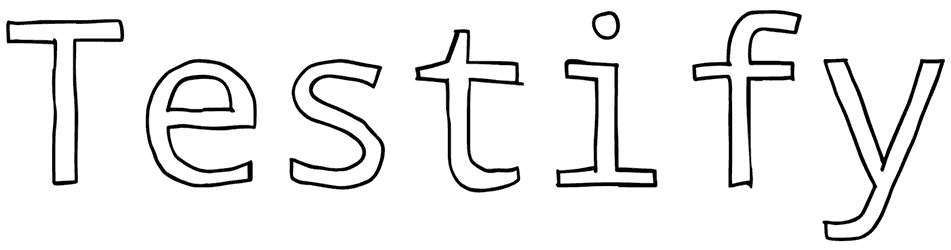
Testify Font
You can lend a unique and eye-catching outward to your words with this handwritten font. Testify has nice, minimal lettering and a classic vibe that can catch a lot of attention. This outline font will be a distinct promotion for your future projects, such as covers, flyers, illustrations, planners, and the like.